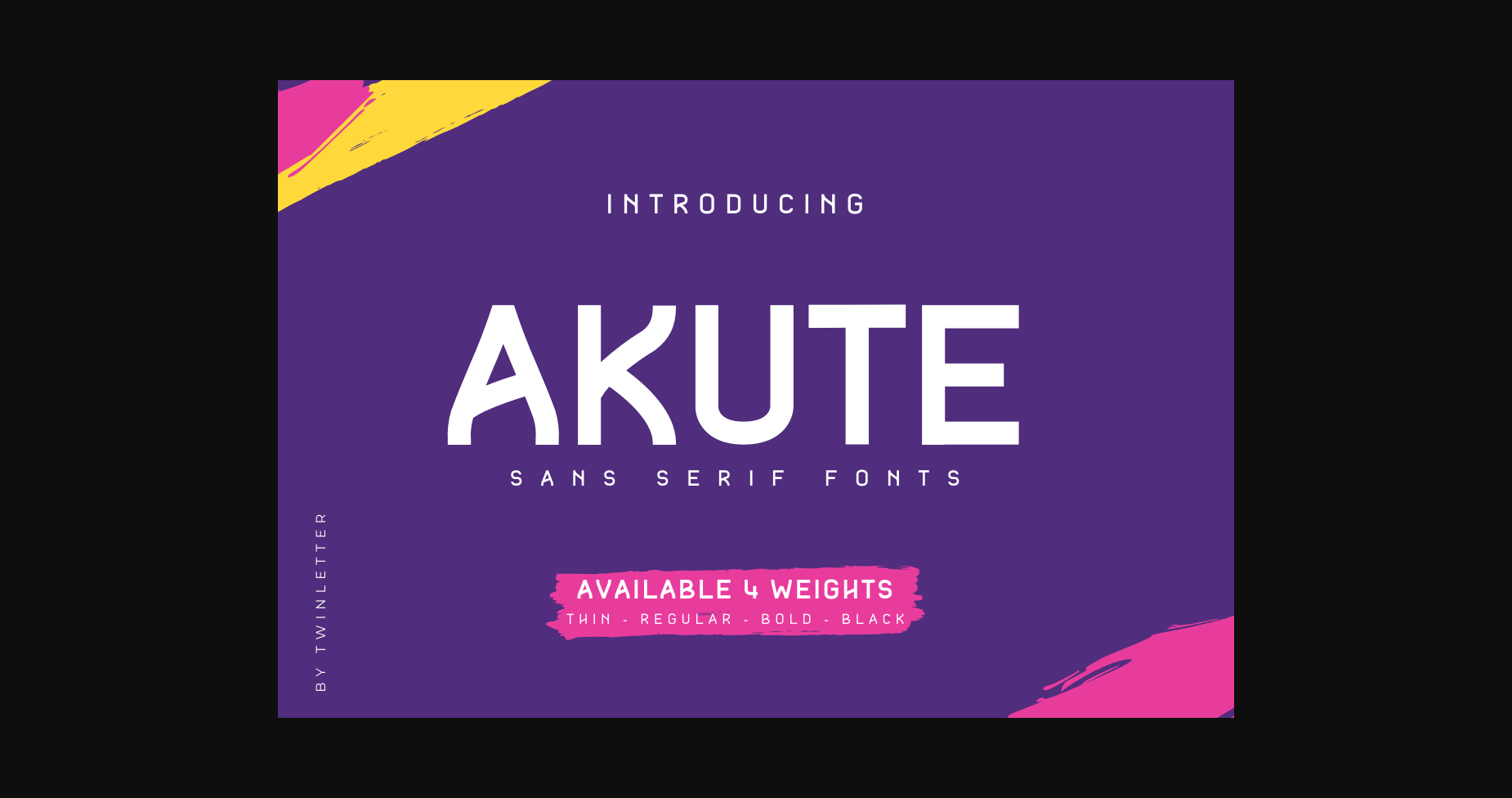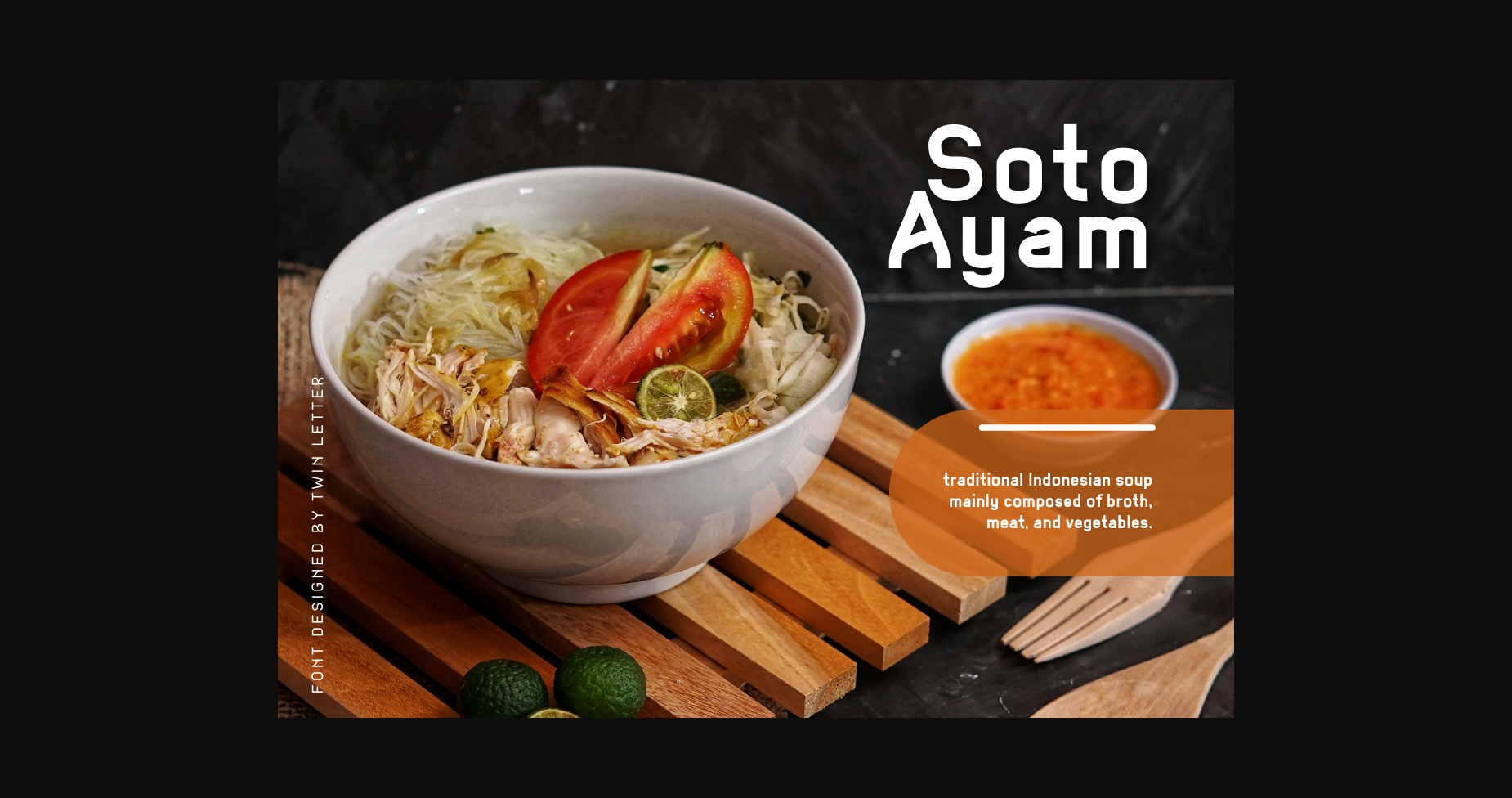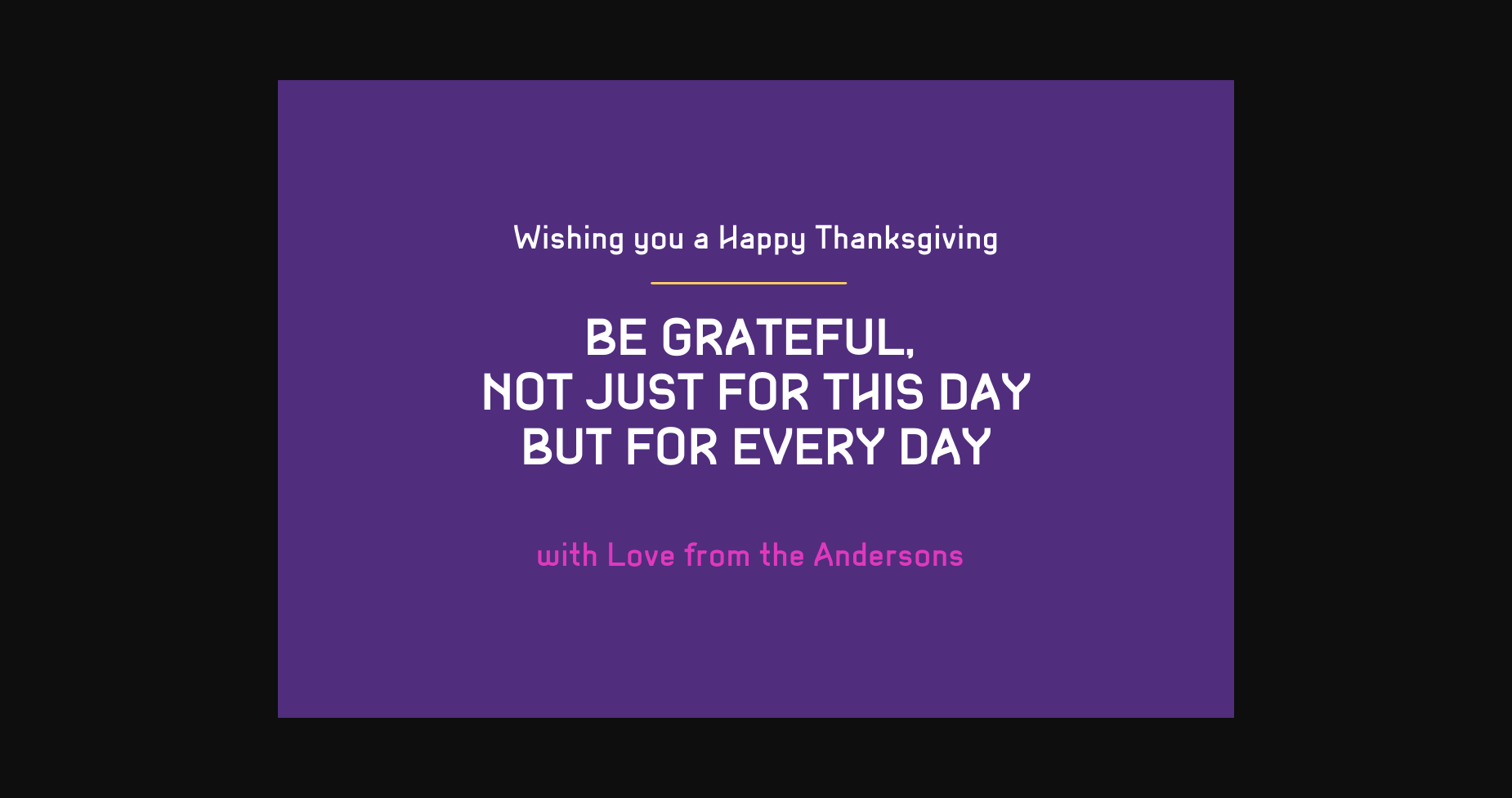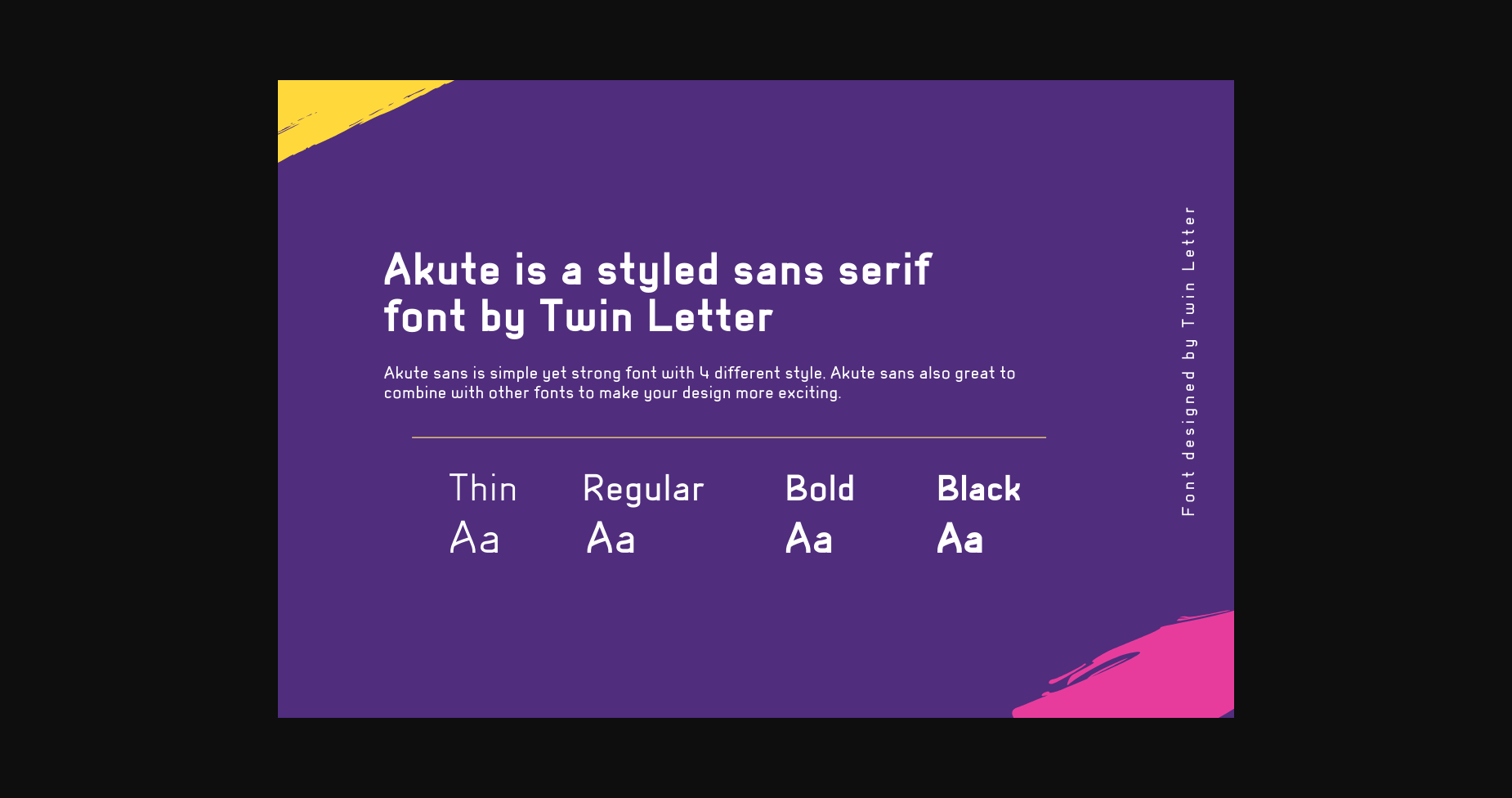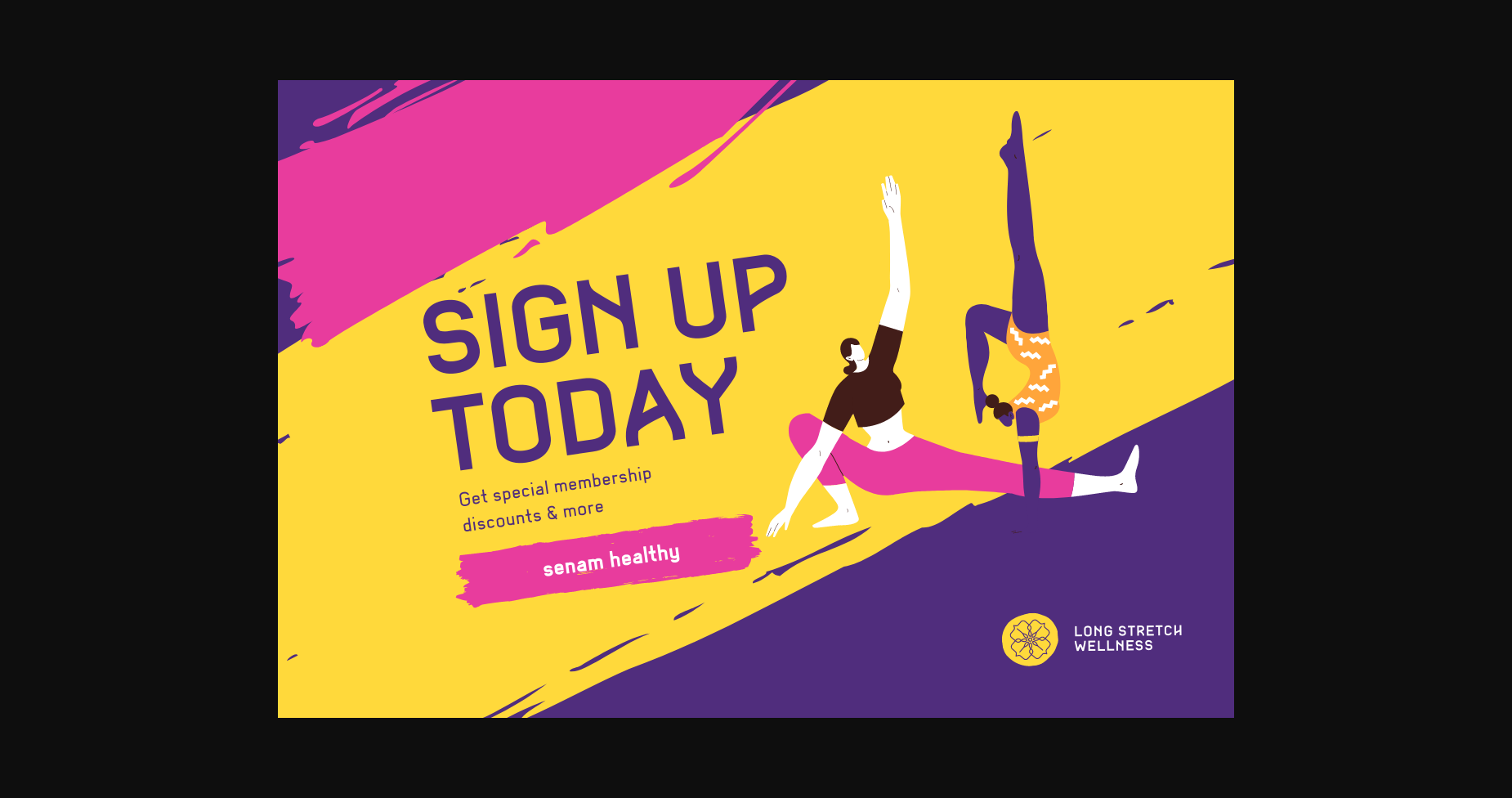
Akute Font
About Akute Font
Akute is a cool and modern sans serif font. It is perfect for any branding project such as logos, t-shirt printing, creative products, and more. It will look extraordinary in a variety of contexts.